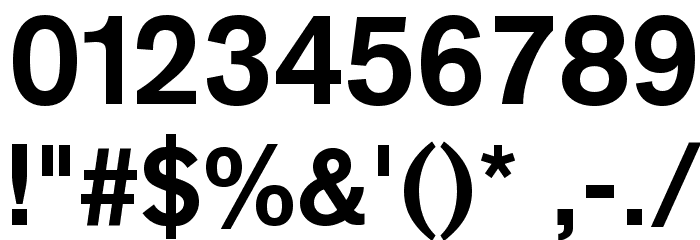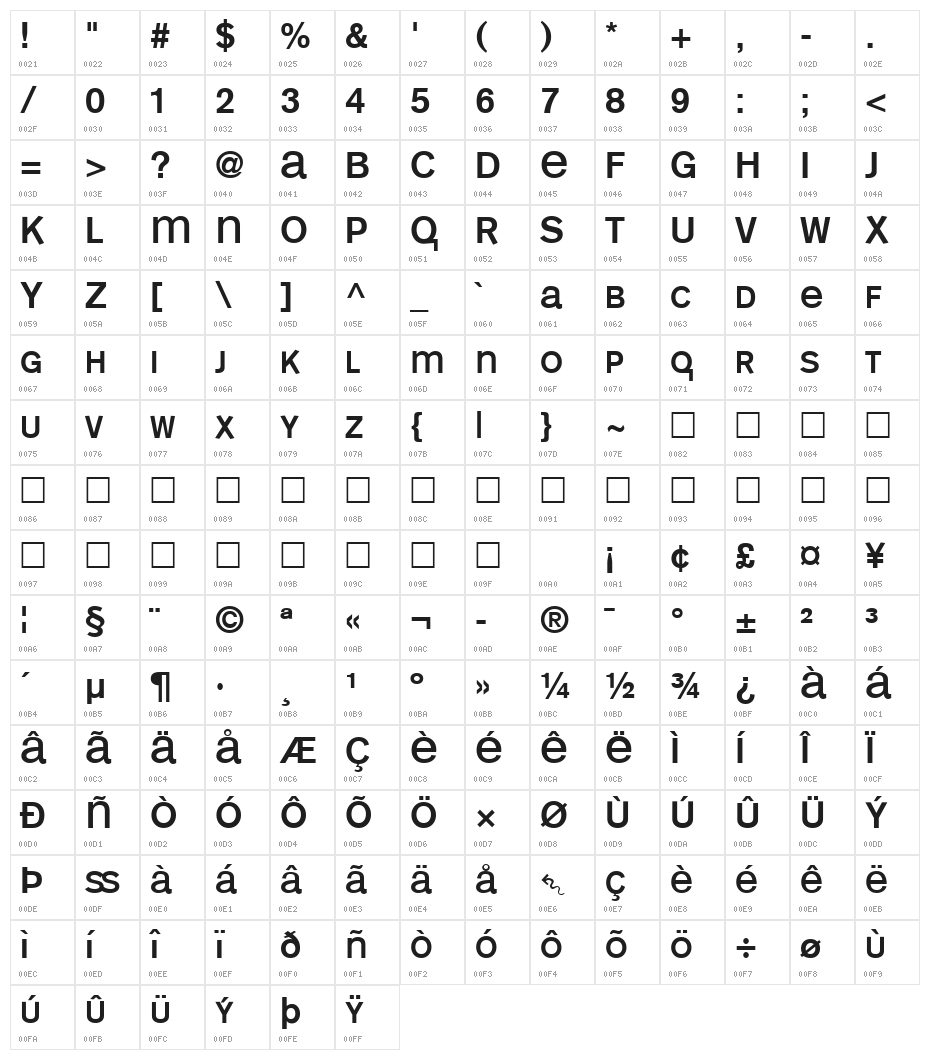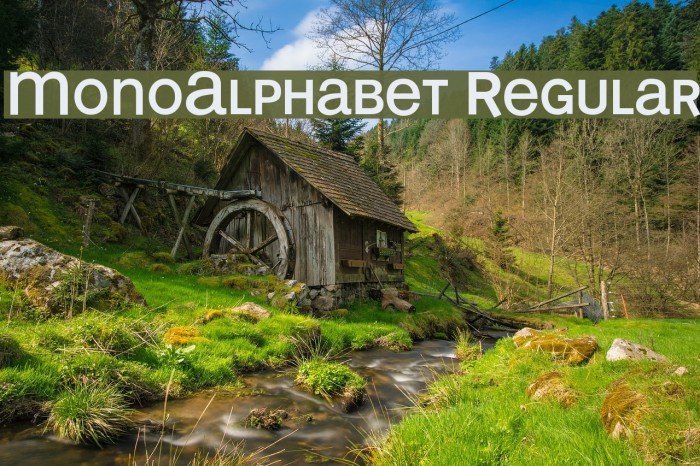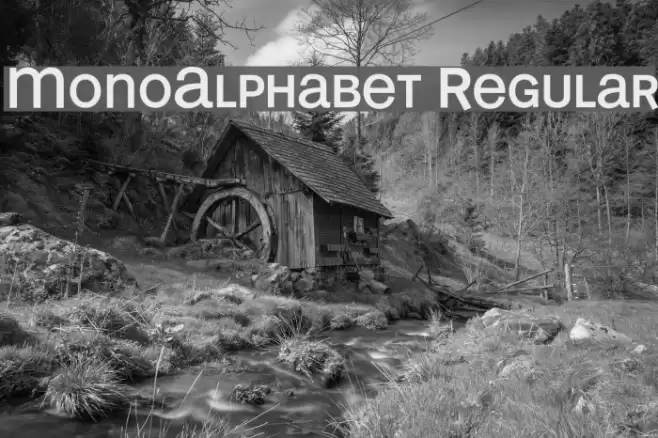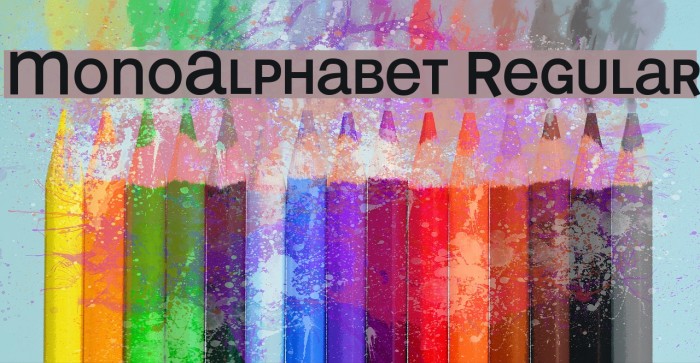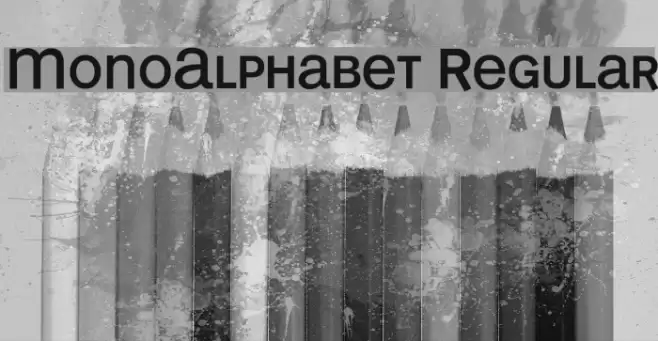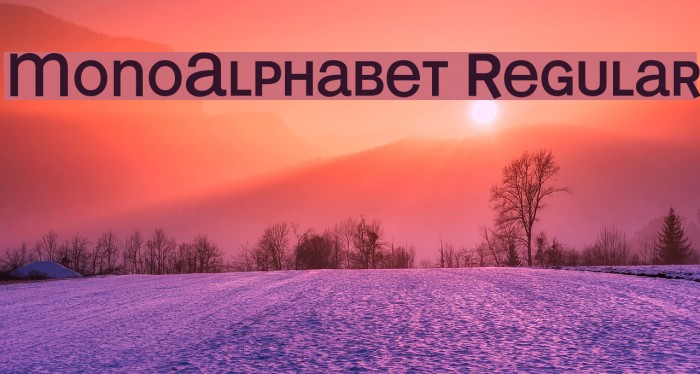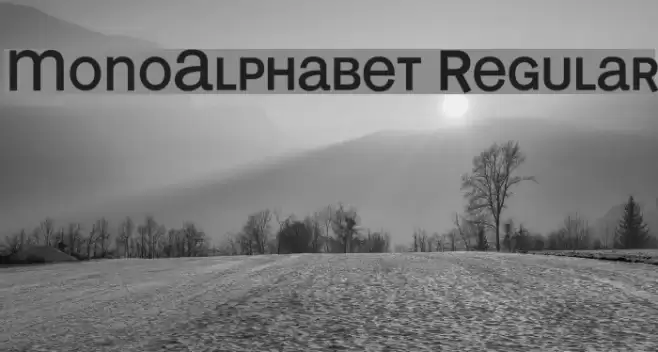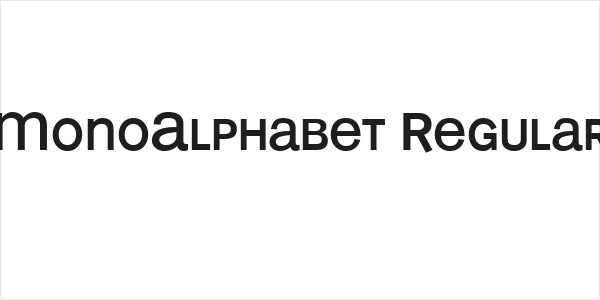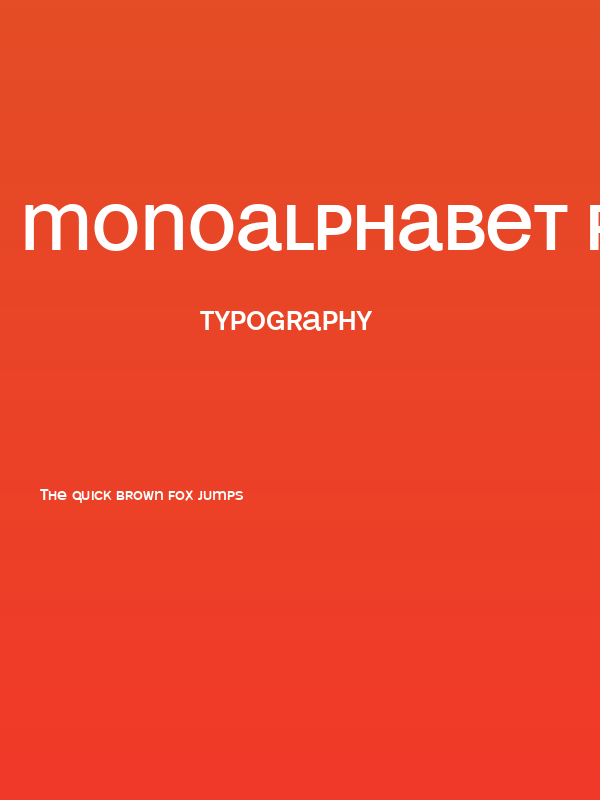
MonoAlphabet Regular Font
MonoAlphabet Regular Description
This font features a clean and modern sans-serif design, characterized by its uniform stroke width and geometric shapes. The letters are well-proportioned, with a consistent height and width that contribute to its readability. The uppercase and lowercase letters maintain a harmonious balance, while the numerals are clear and distinct. Special characters are designed with the same attention to detail, ensuring they integrate seamlessly with the rest of the character set. This font's simplicity and clarity make it versatile for various design applications.
Use CaseHeadlines, Body text, Logos
Proposed ProjectsIdeal for digital interfaces, corporate branding, signage, and editorial design.